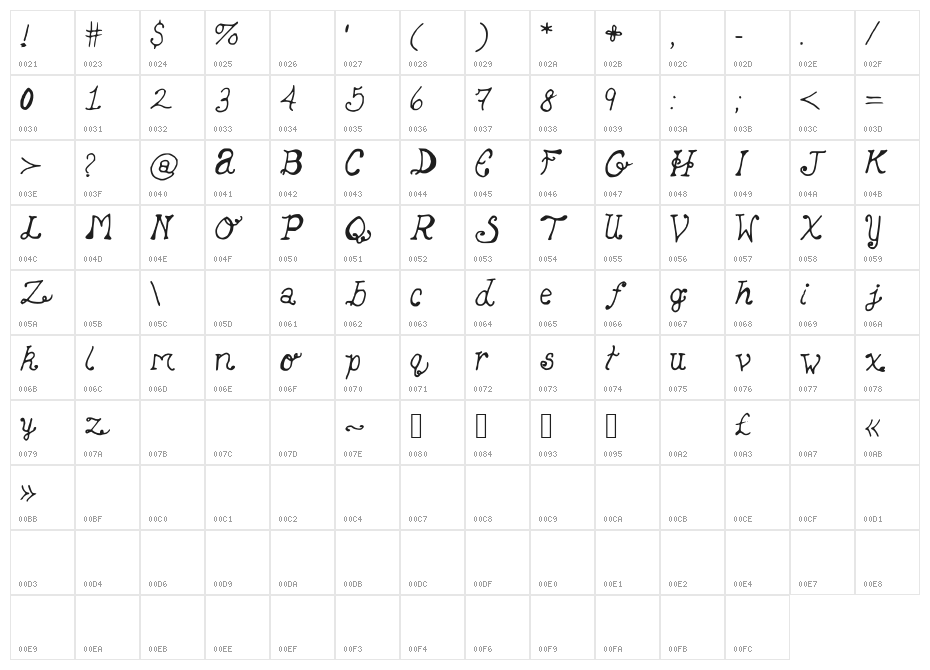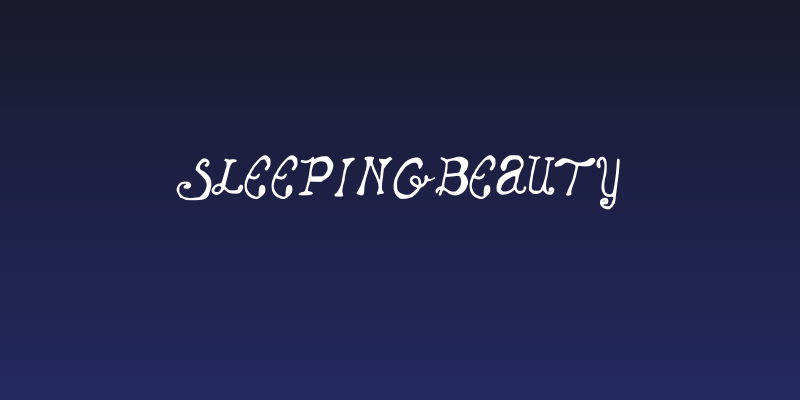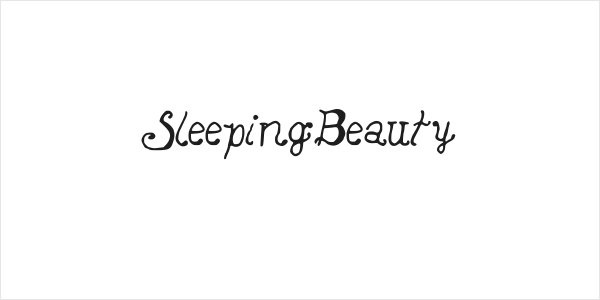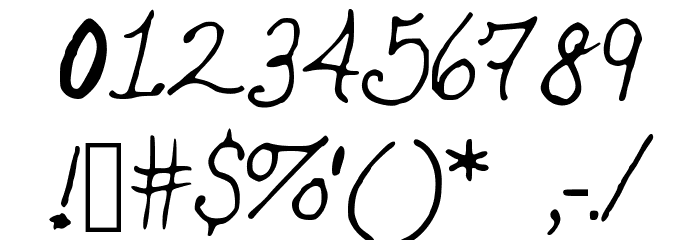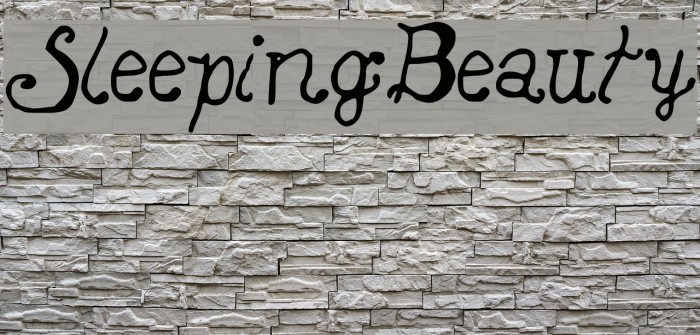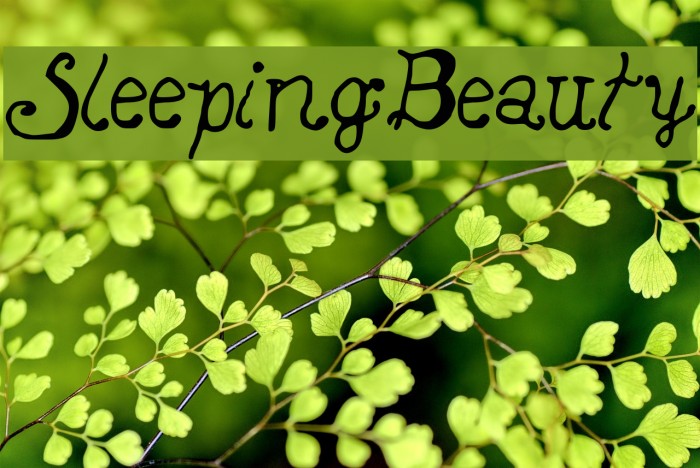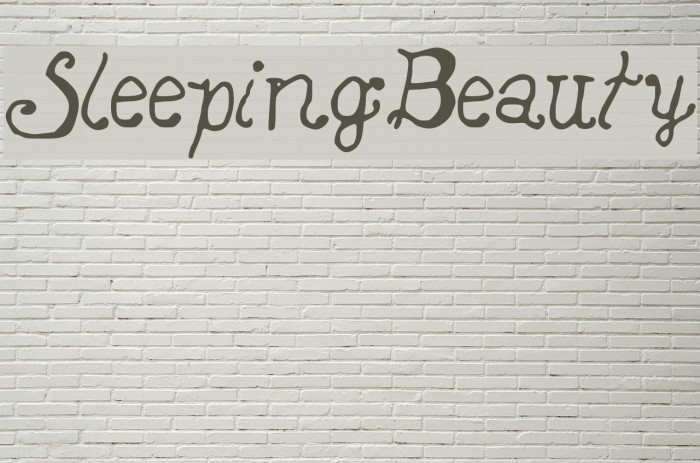
SleepingBeauty Font
SleepingBeauty Description
This font features a whimsical and playful style, characterized by its curly and flowing letterforms. Each character exhibits a unique, hand-drawn quality with varying stroke widths that add to its charm. The uppercase letters are bold and prominent, while the lowercase letters maintain a consistent flow, enhancing readability. Numbers and special characters follow the same playful aesthetic, making them suitable for creative projects. The overall design is reminiscent of a fairy tale or fantasy theme, perfect for capturing attention and adding a touch of magic to any text.
SLEEPINGBEAUTY UPPERCASE
SLEEPINGBEAUTY LOWERCASE
SLEEPINGBEAUTY OTHER CHARS